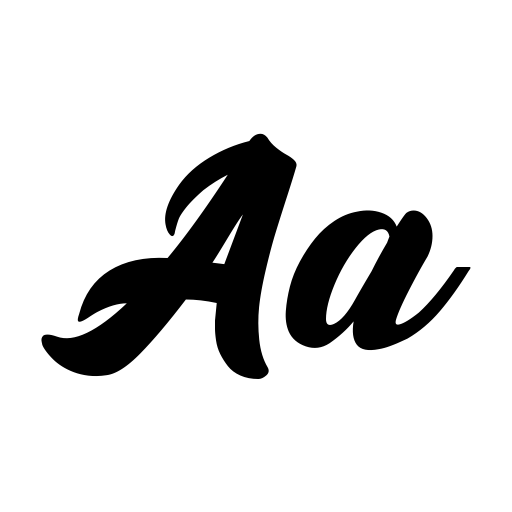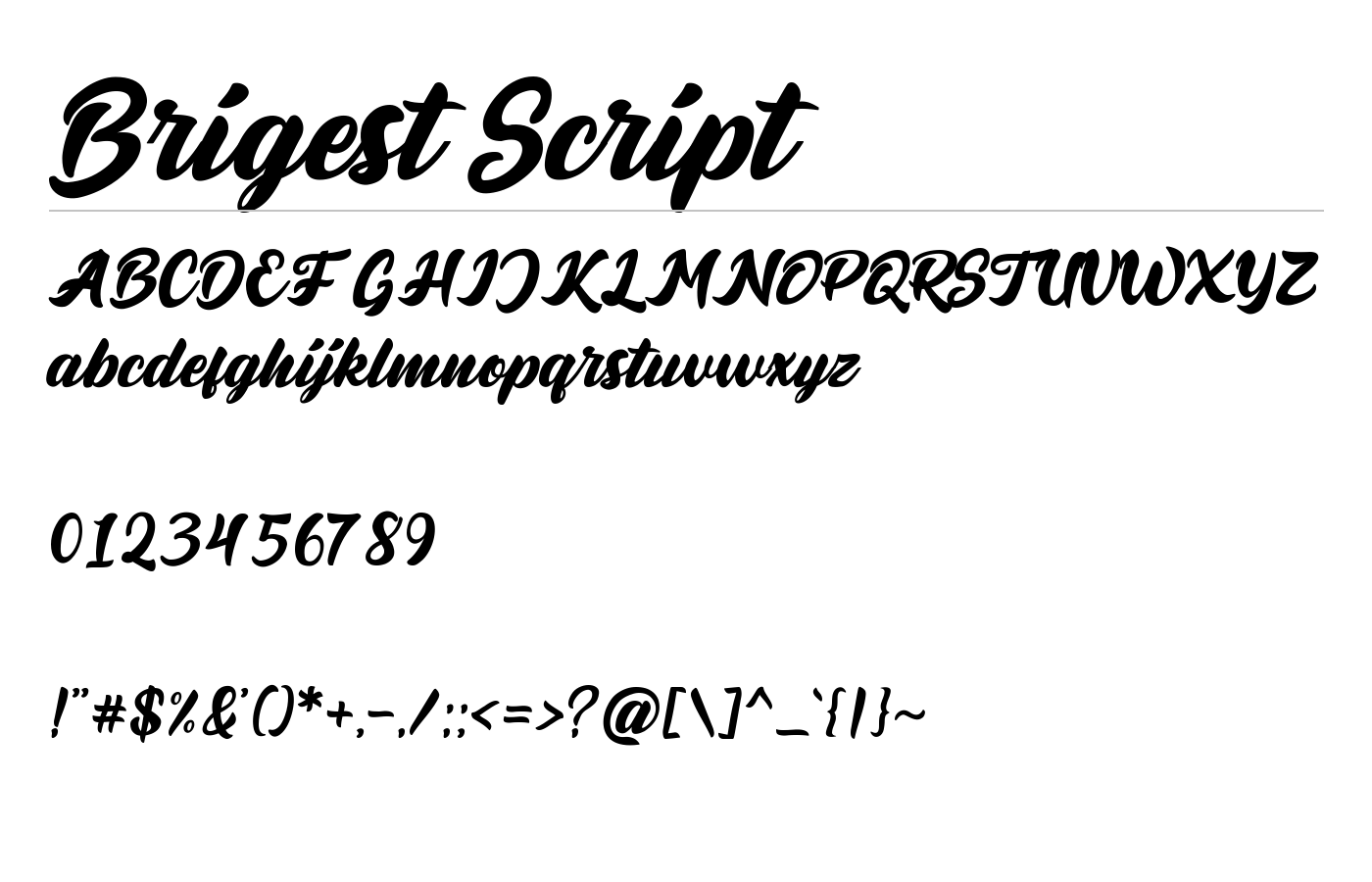
Brigest Script is a bold, flowing script font with smooth, rounded strokes that evoke a warm and friendly yet stylish vibe. Its moderate contrast and slightly condensed letterforms make it perfect for eye-catching headlines, logos, and branding that aim to convey elegance with a touch of playfulness. This font works especially well for fashion, packaging, and editorial projects where a confident yet approachable personality is desired.
Brigest Script Font